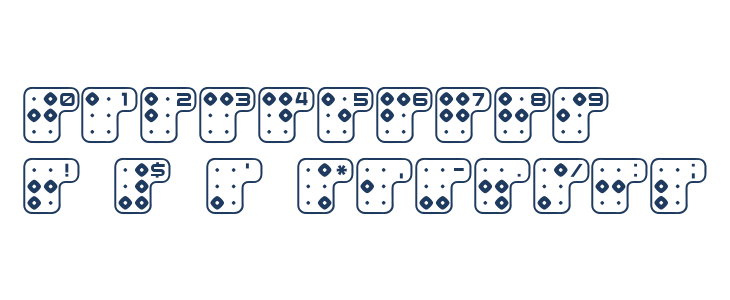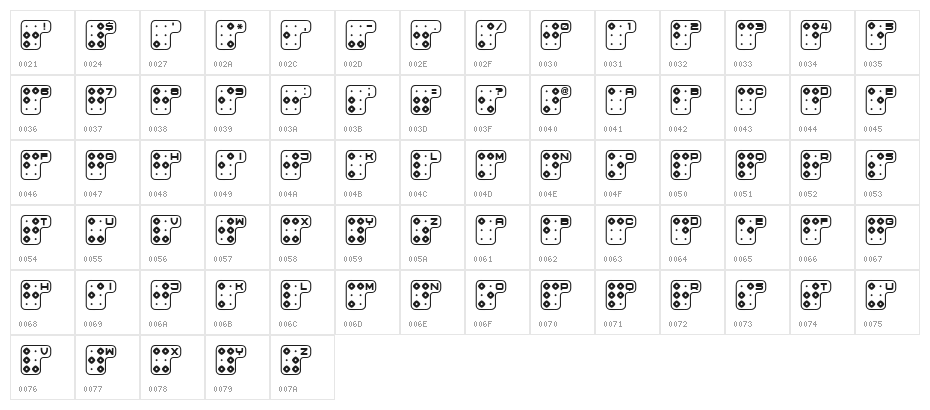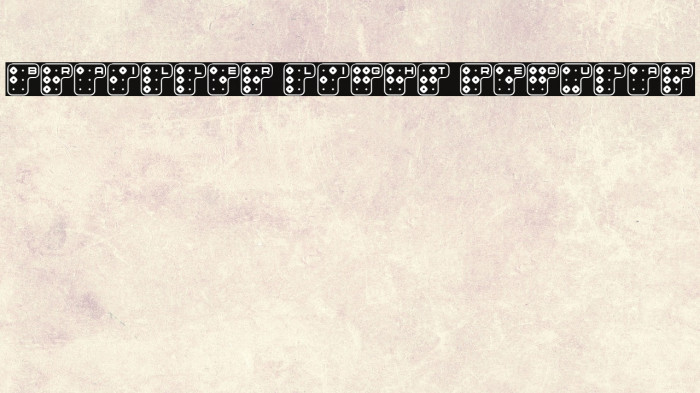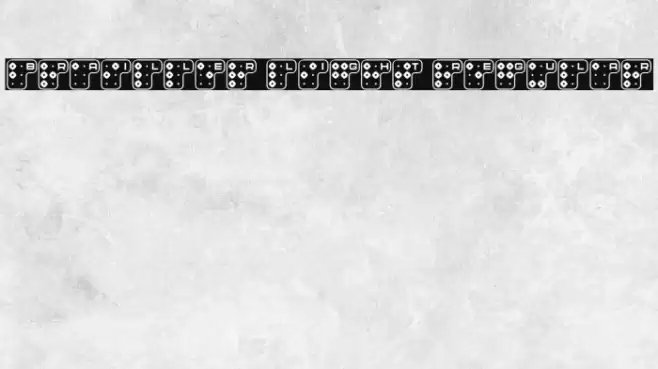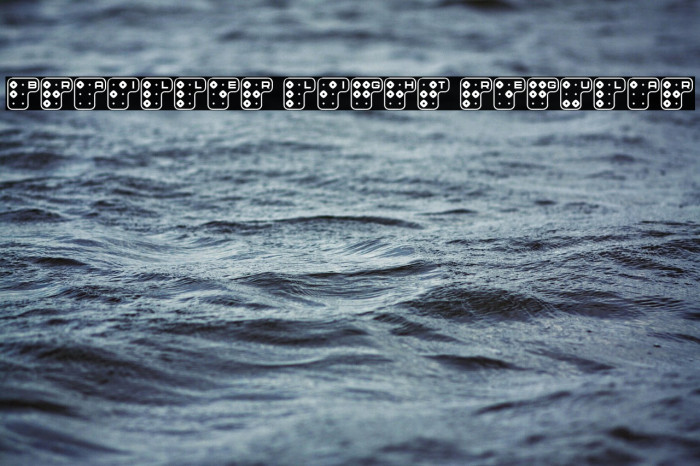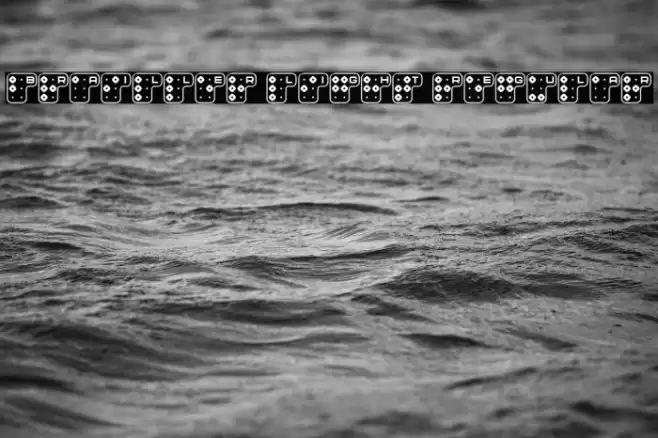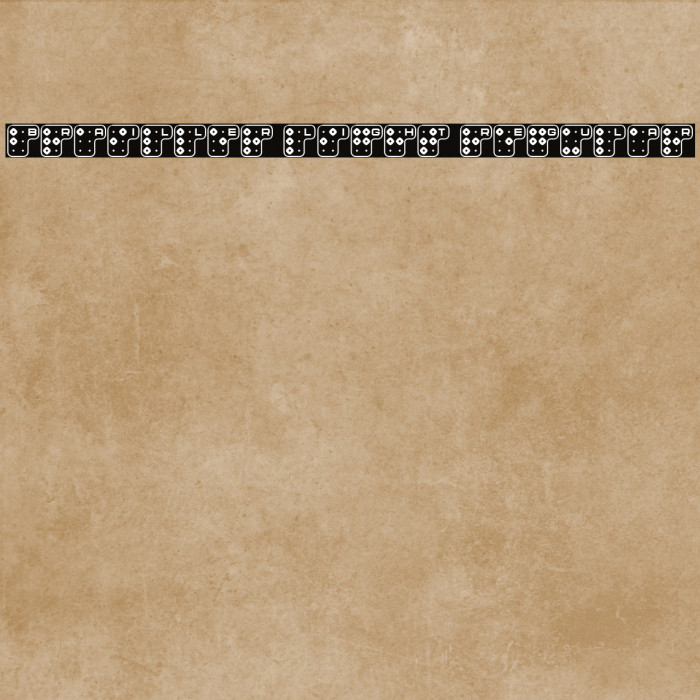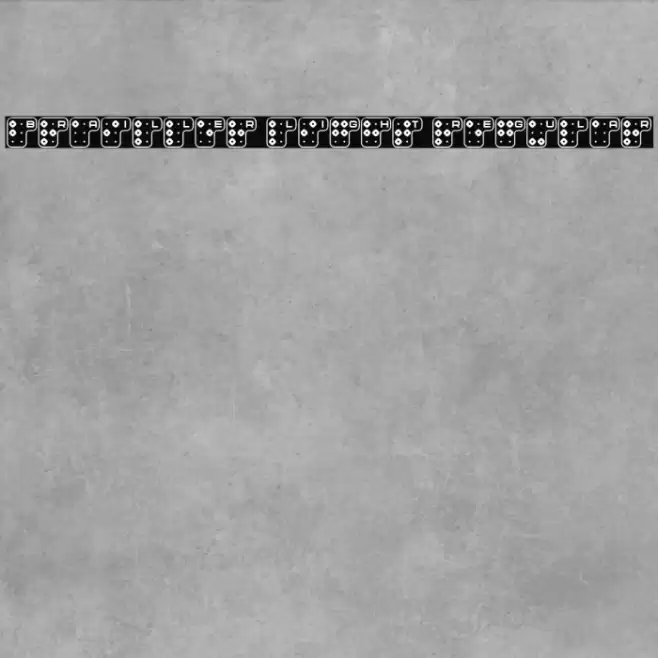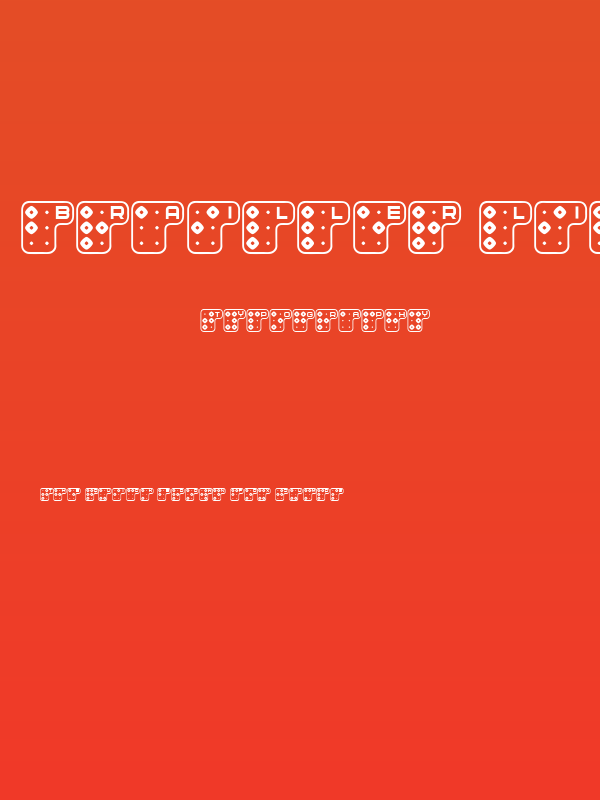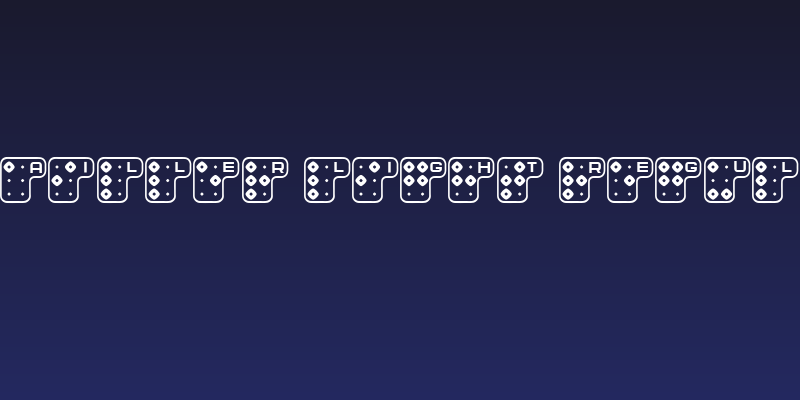
Brailler Light Regular Font
Brailler Light Regular Description
This font is a unique representation of Braille characters, designed to visually mimic the tactile writing system used by people who are visually impaired. Each character is enclosed in a rounded rectangle, with dots arranged in patterns that correspond to the Braille alphabet. The design is clean and minimalistic, with a consistent layout that makes it easily recognizable. The characters are evenly spaced, ensuring clarity and readability. This font serves both an educational purpose and a stylistic one, offering a distinct look that combines functionality with design.
| Use Case | Educational materials, Accessibility guides, Creative design projects |
| Proposed Projects | Ideal for educational materials, accessibility guides, and creative design projects that aim to incorporate Braille aesthetics. |